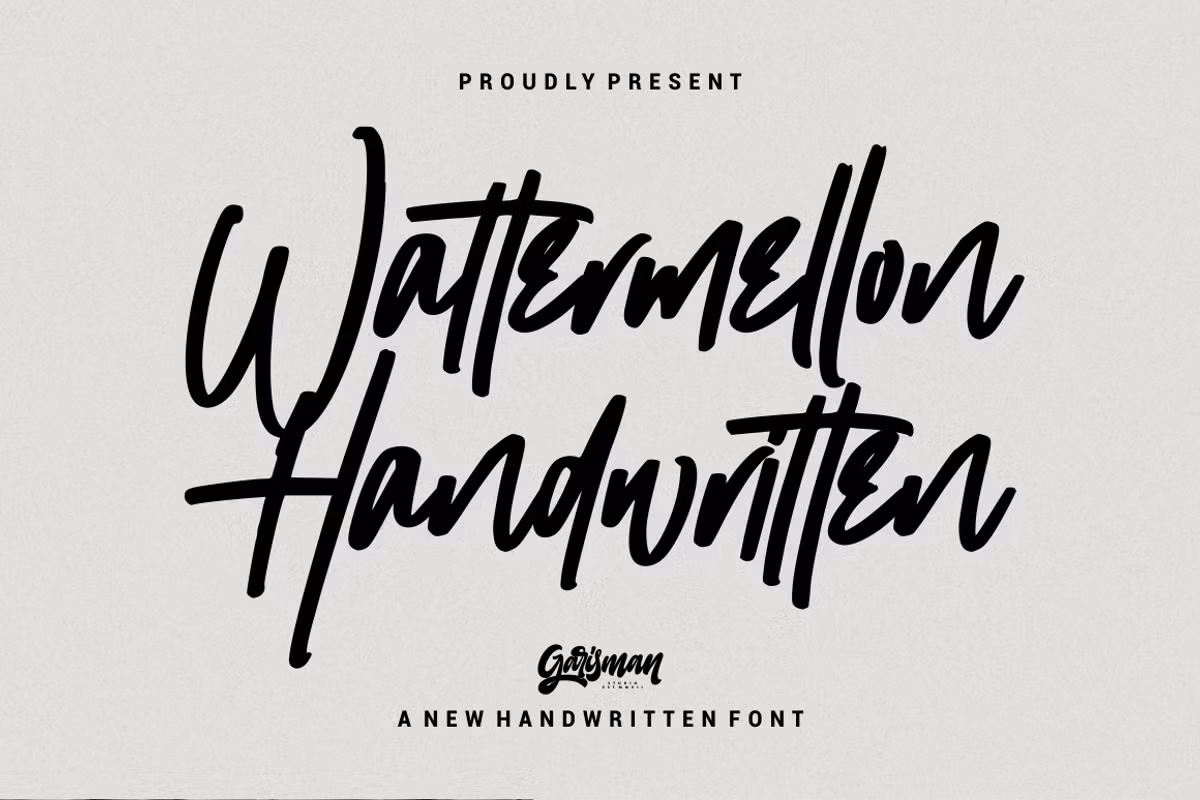
Wattermellon - Handwritten Font Free Download is a playful, organic script typeface with a friendly, casual feel. Inspired by hand-lettering, this font is perfect for creating personalized designs, invitations, greeting cards, branding, social media posts, and any project that calls for a fresh, creative touch.
With its smooth strokes and lively flow, Wattermellon brings a natural, handwritten style that adds warmth and character to your designs. Whether you're crafting for a fun, youthful brand or a special event, this font offers the perfect balance of elegance and informality.
Add a burst of creativity and charm to your designs with the fresh, playful style of Wattermellon!